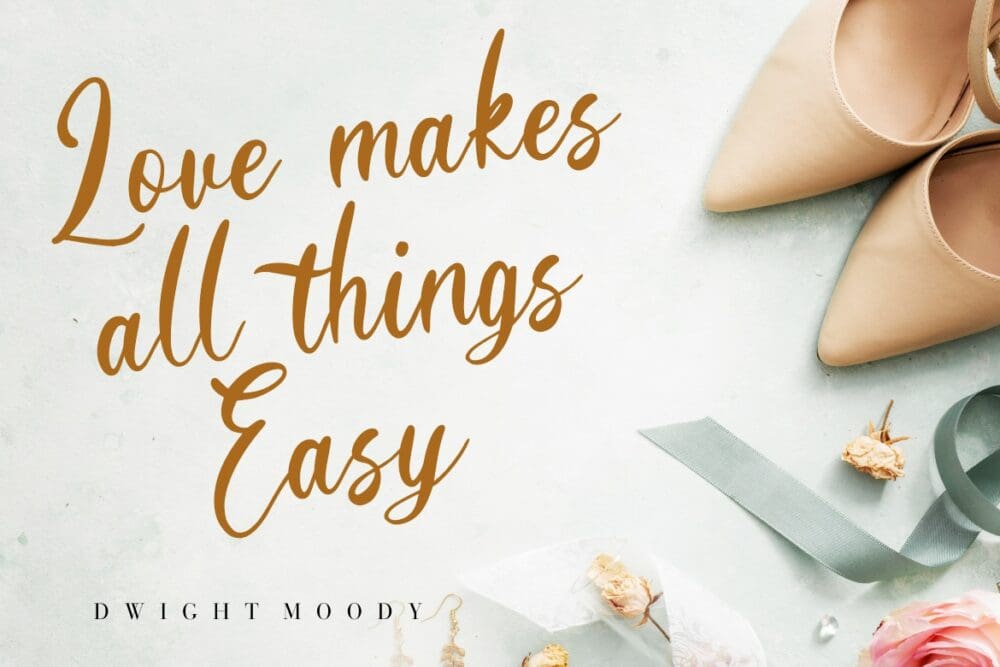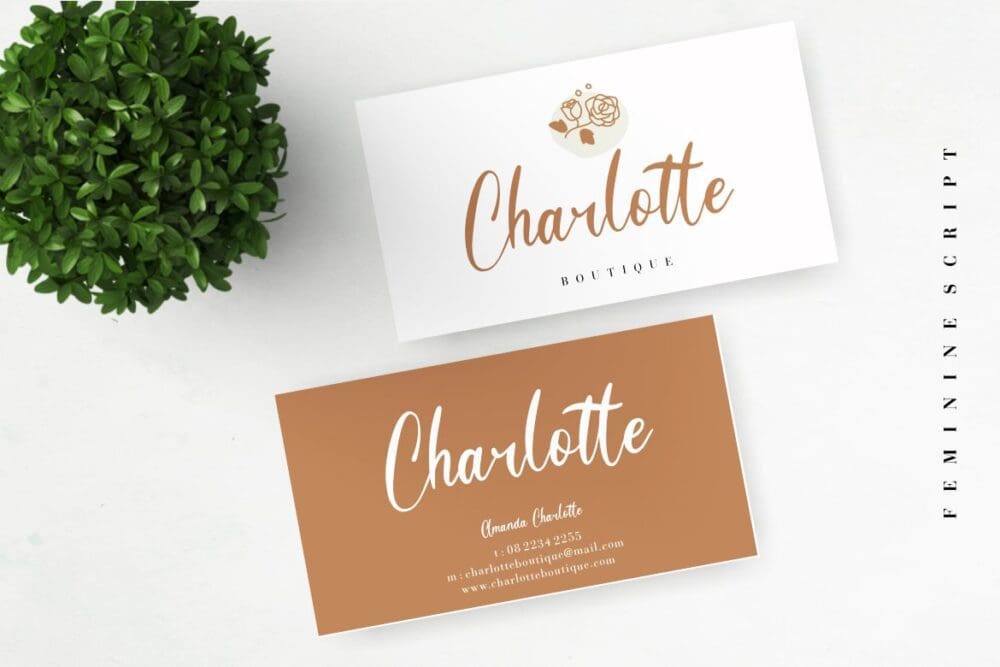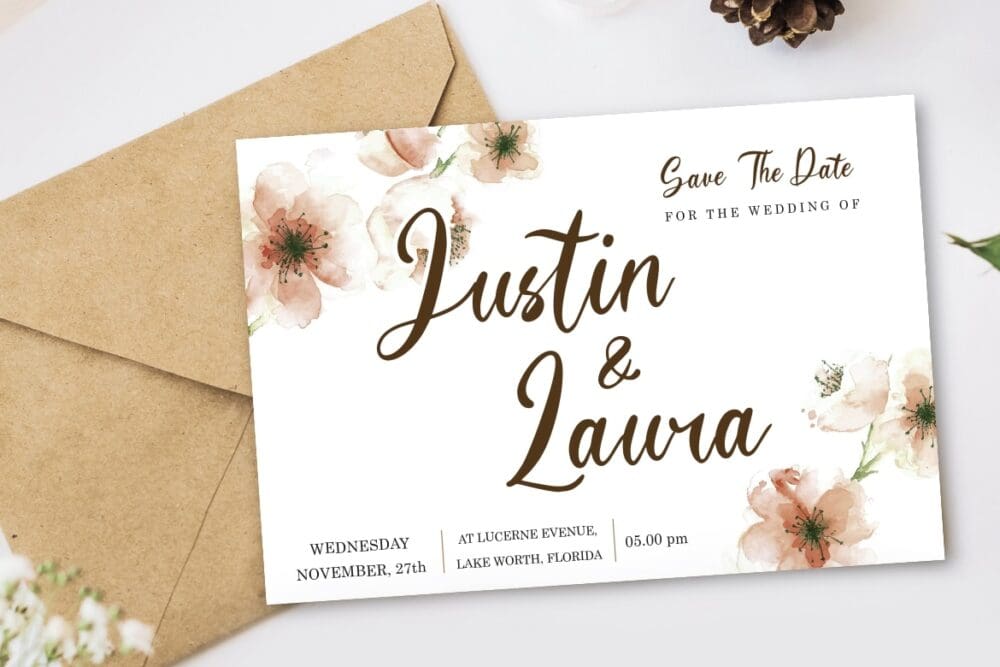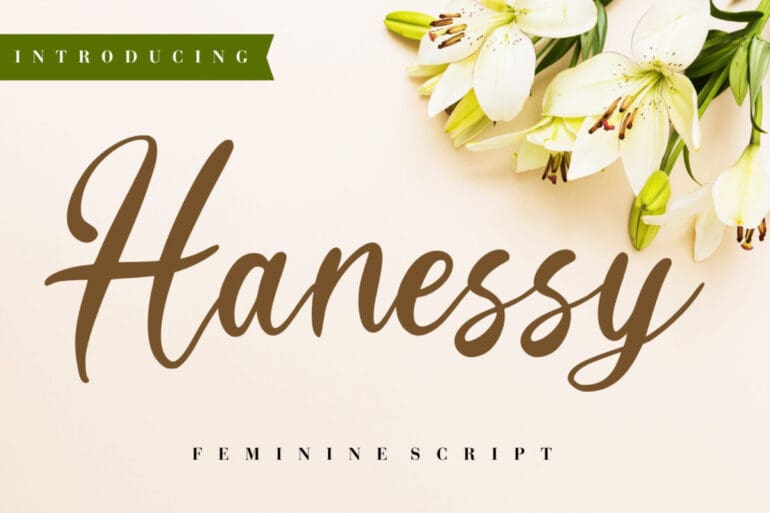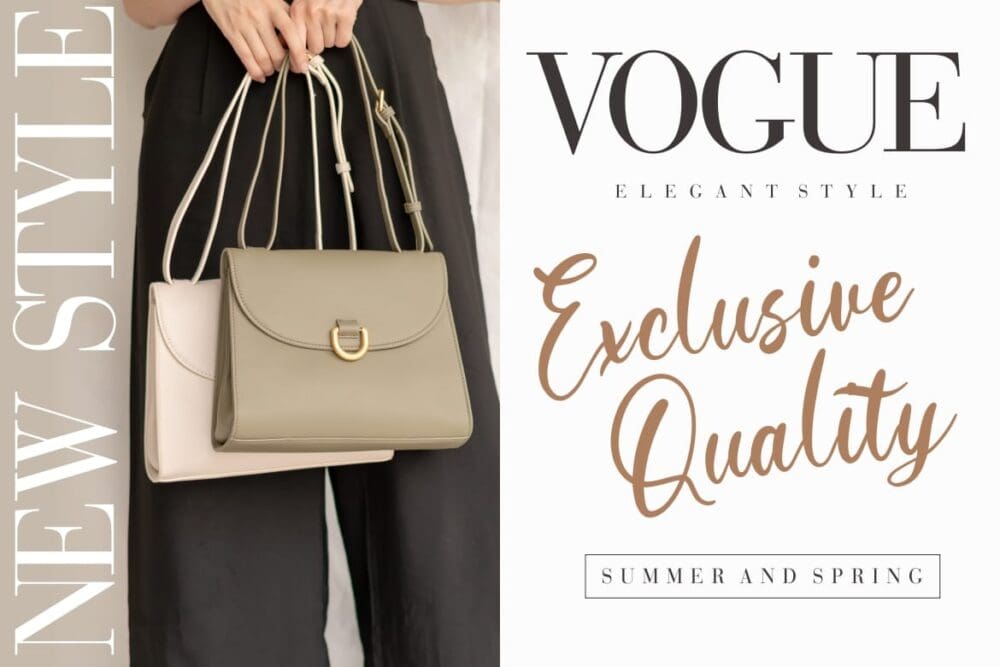
Hanessy Feminine Script Font
Hanessy Feminine Script Font. This font looks sophisticated classy and elegant. Hanessy is perfect for branding projects, wedding designs, product designs, labels, photography,  invitation, stationery, and any other projects.